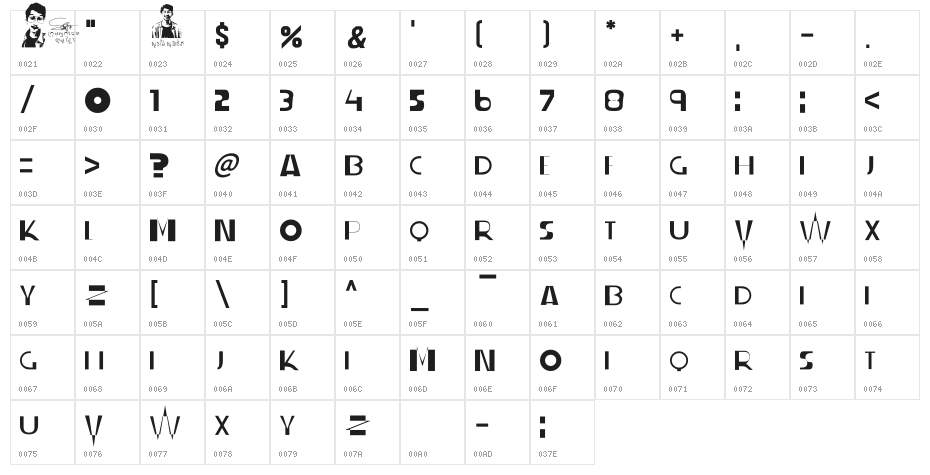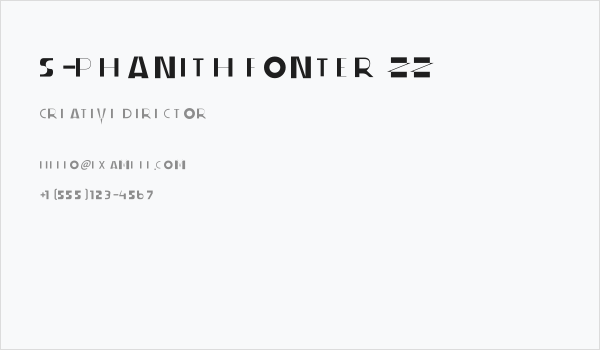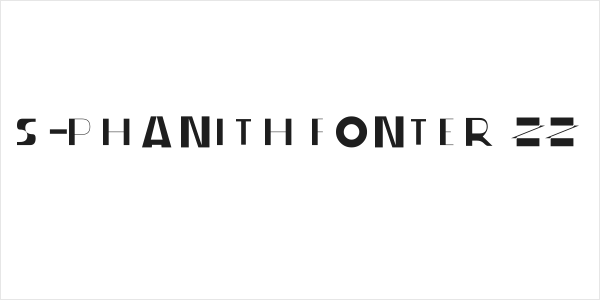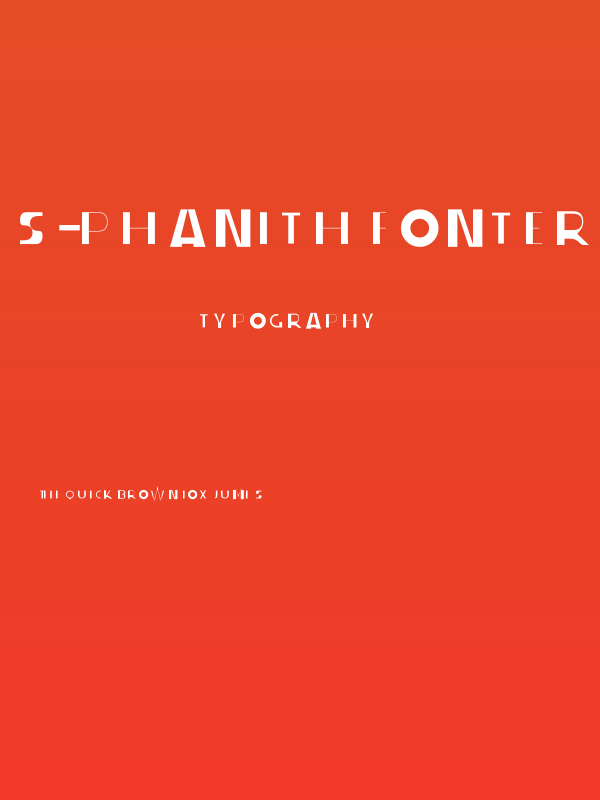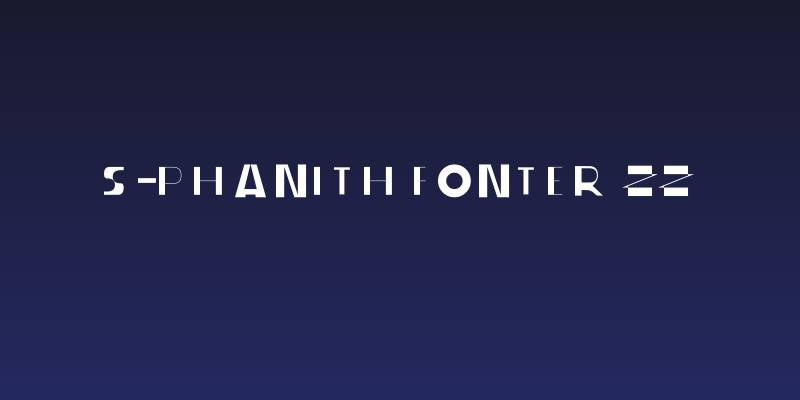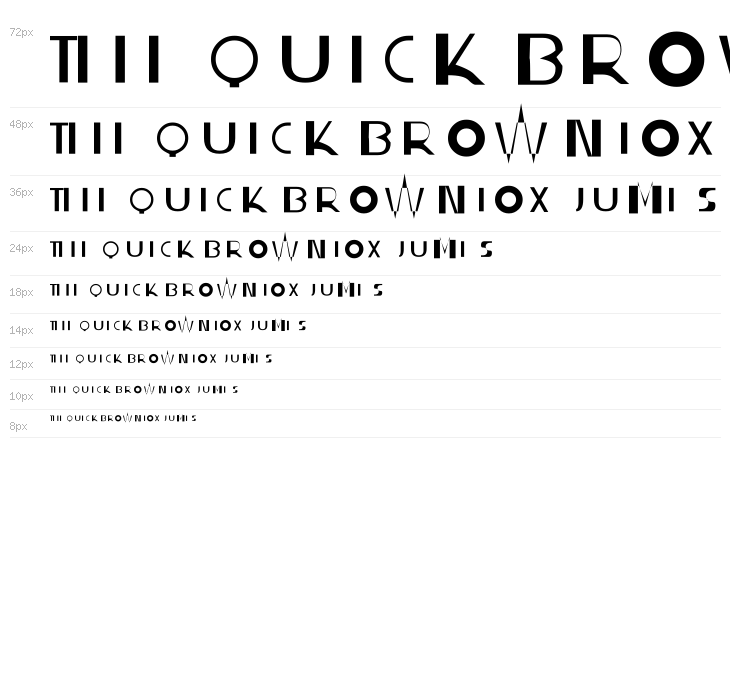
S-PHANITH FONTER ZZ Font
S-PHANITH FONTER ZZ Description
This font features a bold and modern design with a geometric influence. The uppercase letters are characterized by sharp angles and clean lines, creating a futuristic and edgy appearance. The lowercase letters maintain a similar style, offering a cohesive look across different text cases. Numbers are bold and consistent with the overall geometric theme. Special characters are uniquely styled, adding to the font's distinctiveness. This typeface is ideal for projects that require a contemporary and striking visual impact.
| Overall Style | Modern, Geometric |
| Proposed Projects | Ideal for branding, posters, headlines, and digital media that require a modern and bold aesthetic. |